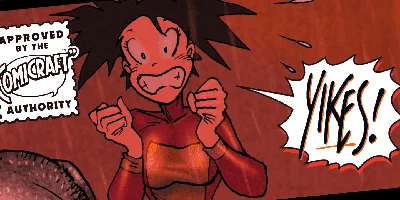
Shout Out Font
Shout Out Font is perfect for energetic advertising campaigns, youth-oriented branding, concert posters, sports team graphics, motivational quote designs, social media content, event announcements, and dynamic marketing materials that require high-energy visual communication.
This font is exciting because it embodies pure energy and enthusiasm through its bold, expressive letterforms that practically leap off the page. The dynamic character design captures the essence of excitement and celebration, making it ideal for projects that need to grab attention and convey powerful emotions instantly.
Shout Out Font belongs to the bold display font family, featuring strong, impactful weights and energetic styling that enhance its effectiveness for attention-grabbing headlines and promotional design applications.
Whether you're creating high-energy advertising campaigns or dynamic event promotions, Shout Out Font delivers maximum visual impact and emotional resonance. This typeface transforms ordinary messages into powerful statements that demand attention and inspire action. The font's commanding presence excels in large display applications, headlines, and promotional graphics, providing exceptional readability while maintaining its enthusiastic character that energizes any design project and creates memorable brand experiences across all media platforms and marketing channels.